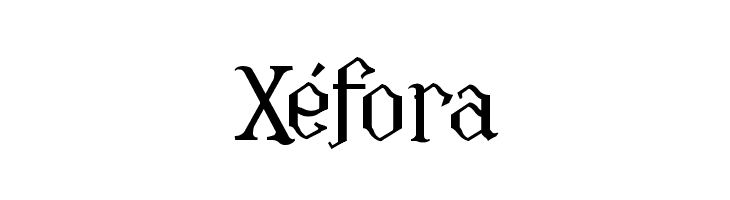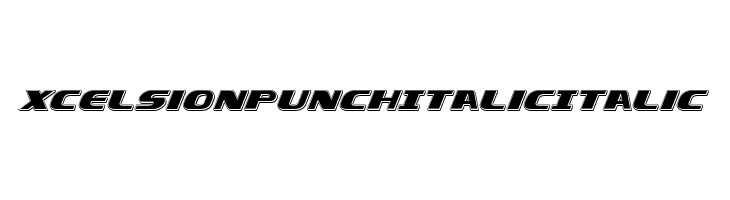
A bold, blackletter font with sharp, angular lines and a medieval aesthetic.
A bold blackletter font with intricate, angular letterforms and a historic feel.
A bold, geometric font with a modern and angular design.
A bold, geometric font with a modern and striking design.
A bold, italic font with a modern, geometric design and dynamic style.
A modern, geometric font with clean lines and uniform stroke widths.
A modern, abstract font with fragmented, distressed letterforms.